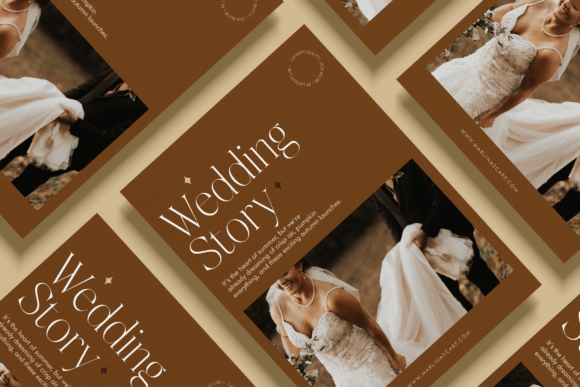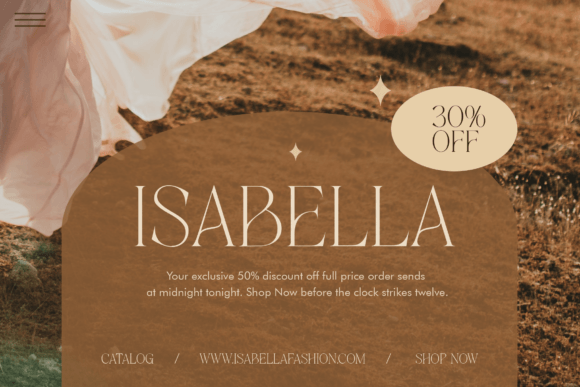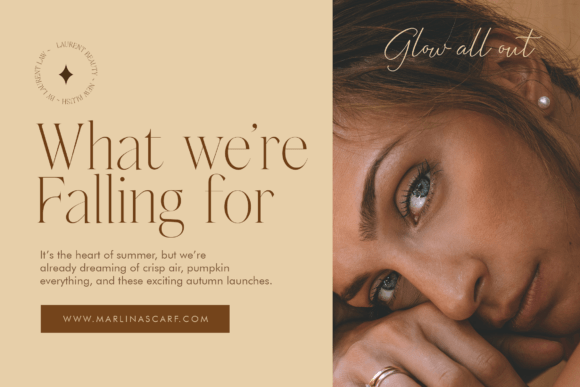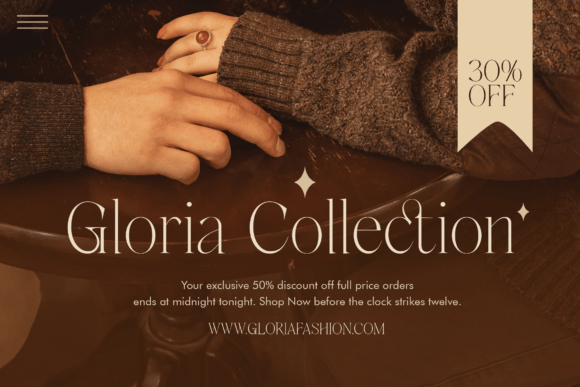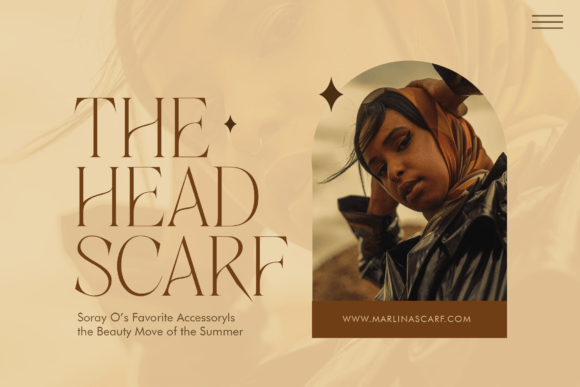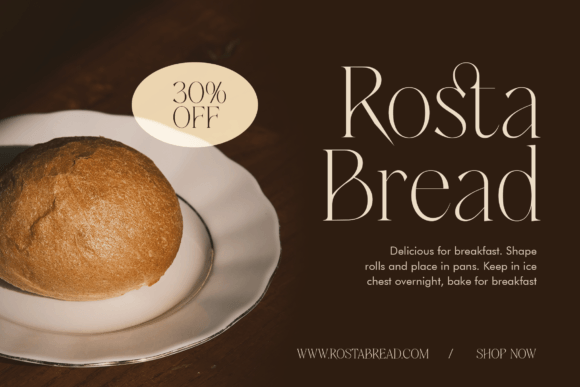
Barghain Font: Elevate Your Design with Elegance and Sophistication
In the world of typography, a font can make or break a design. For designers and crafters seeking to add a touch of luxury and sophistication to their projects, Barghain Font is an exceptional choice. This modern, beautiful, elegant, and aesthetic serif font is specifically designed to help you create stunning typography that exudes expressive feminine charm.
What is Barghain Font?
Barghain Font is a thoughtfully crafted serif font that boasts a unique blend of modernity and classic elegance. Its design is centered around creating a sense of luxury and refinement, making it perfect for high-end projects that demand attention to detail and a touch of sophistication. With its clean lines, balanced proportions, and beautiful curves, Barghain Font is sure to elevate your design to new heights.
Key Features of Barghain Font
- Alternates and Ligatures: Barghain Font comes with a range of alternates and ligatures, allowing you to experiment with different combinations to achieve the perfect typography design. This feature enables you to add a personal touch to your project and make it truly unique.
- Elegant and Expressive: The font’s elegant design and expressive feminine charm make it an ideal choice for projects that require a touch of sophistication and luxury. Whether you’re designing a logo, editorial content, or promotional materials, Barghain Font is sure to impress.
- Versatile: Barghain Font is incredibly versatile, making it suitable for a wide range of projects, from luxury logos and branding to classy editorial design, woman’s magazines, cosmetic brands, fashion promotional materials, art gallery branding, museums, history of architecture, boutique branding, stationery design, blog design, modern advertising design, card invitations, art quotes, home decor, book/cover titles, special events, and more.
Use Cases for Barghain Font
Barghain Font’s versatility makes it an excellent choice for various design projects. Here are some use cases to inspire you:
- Luxury Logo and Branding: Create a lasting impression with a luxurious logo and branding that exudes elegance and sophistication.
- Classy Editorial Design: Elevate your editorial content with a refined and elegant font that adds a touch of luxury to your publication.
- Woman’s Magazine: Design a magazine that celebrates femininity and style with a font that embodies these qualities.
- Cosmetic Brand: Develop a strong brand identity for your cosmetic company with a font that conveys beauty and sophistication.
- Fashion Promotional: Create eye-catching promotional materials that showcase your fashion brand’s style and elegance.
Why Choose Barghain Font?
- Unique Design: Barghain Font boasts a unique design that sets it apart from other fonts. Its elegant and expressive feminine charm makes it an excellent choice for designers seeking to create something special.